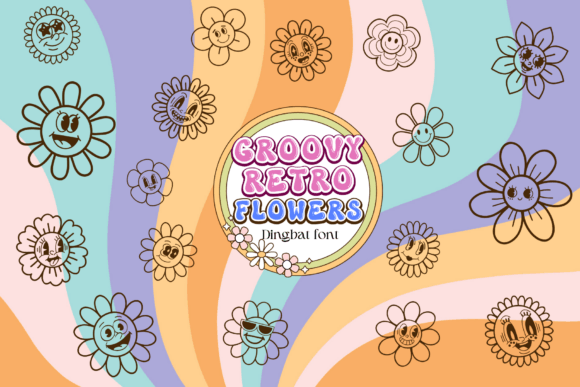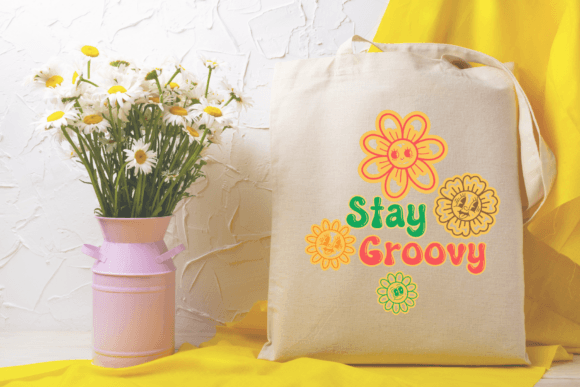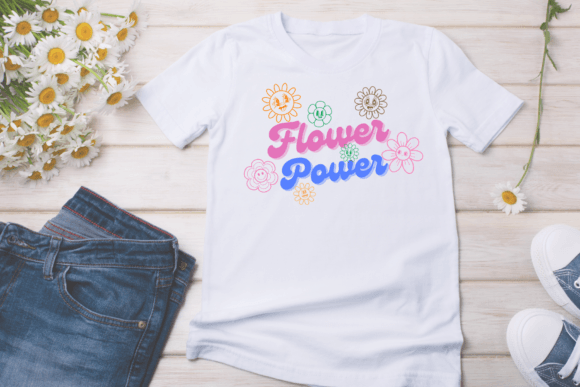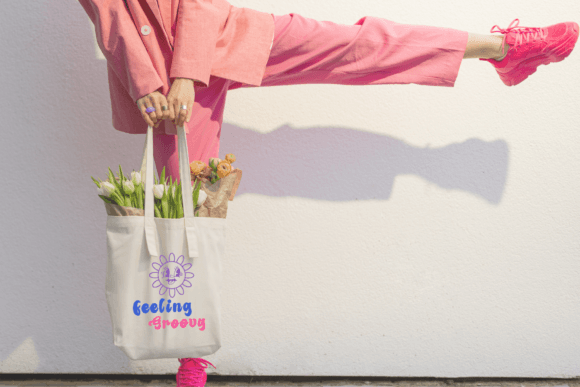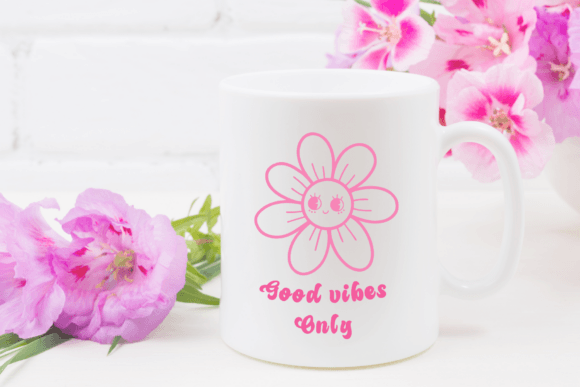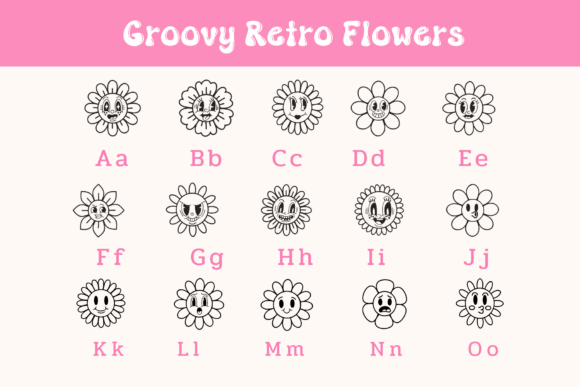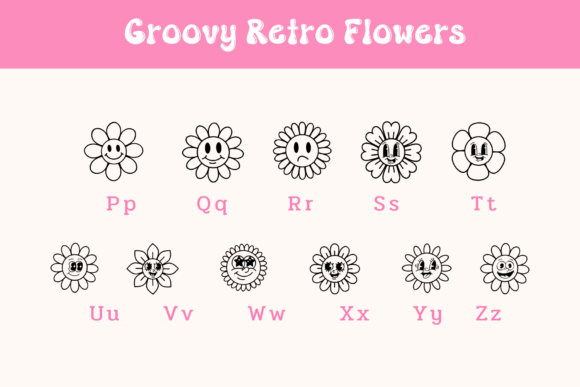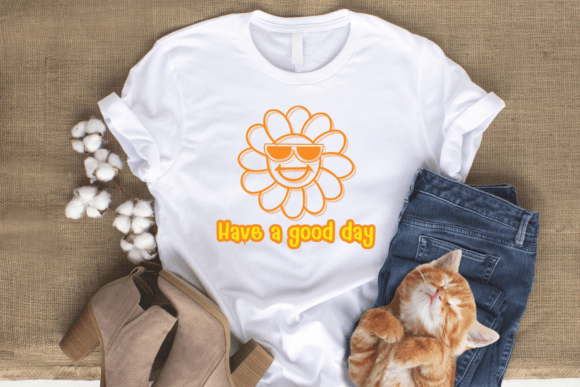
Groovy Retro Flowers is a cute flower face collection dingbats font. Trendy groove flowers set in 60s, 70s retro style sketched style. This font can enhance your creative projects such as wedding invitations, DIY, crafts, decorations, logos, and many other creative ideas.
Groovy Retro Flowers Font